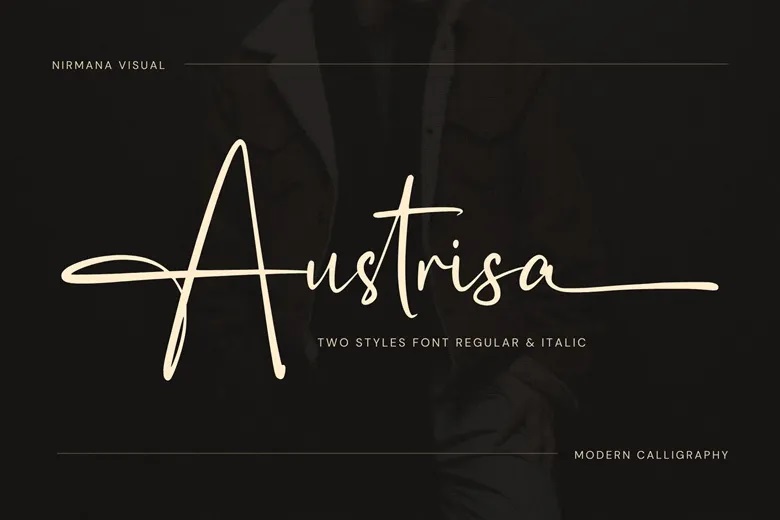
Austrisa Font
Austrisa is a modern script that slightly resembles handwriting signature that features very beautiful curves on the letters. It is perfect for wedding invites and high end logos. In regular and italic forms, it has special alternate swashes in lowercase letters giving elegant and calligraphic bends.
This makes it perfect for invitations of any occasion, logos and designs that require more PV in their engraving or lettering. Epochal is both eye-catching and easy to read making Austrisa an unparalleled asset to any project in terms of style and sophistication.
Austrisa Handwritten Script Font